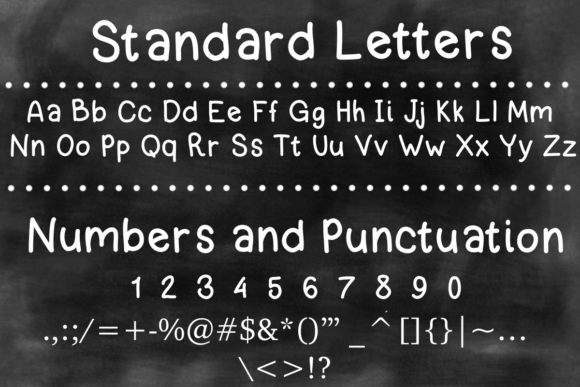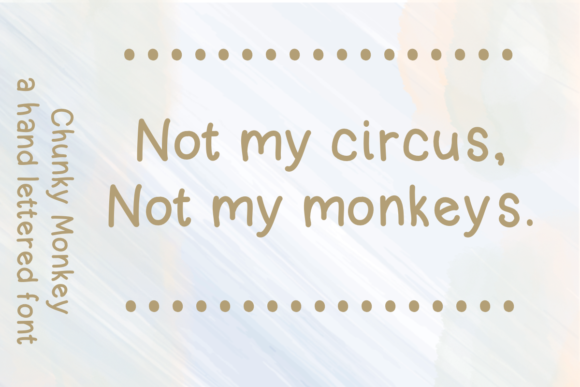
Introducing Chunky Money Font: The Fun and Funky Hand-Lettered Font You Need!
Are you tired of using the same old boring fonts in your designs? Look no further! Chunky Money Font is here to shake things up with its simple, yet cheerful, and fun vibe. This chunky hand-lettered font is perfect for designers and crafters who want to add a funky feel to their projects.
What is Chunky Money Font?
Chunky Money Font is a hand-lettered font that boasts a unique and playful style. Its chunky and bold letters are carefully crafted to give your designs a fun and lively feel. This font is perfect for creating eye-catching titles, headings, and even quotes. Whether you’re working on a graphic design project, a crafting project, or even a DIY sign, Chunky Money Font is sure to make it stand out.
Key Features of Chunky Money Font
- Hand-lettered: Each letter is carefully hand-drawn to give the font a personal and unique touch.
- Chunky and bold: The font’s chunky and bold letters make it perfect for creating eye-catching designs.
- Fun and funky: The font’s playful style is sure to add a fun and lively feel to your designs.
- Easy to read: Despite its chunky style, the font is easy to read, making it perfect for use in a variety of projects.
Uses for Chunky Money Font
Chunky Money Font is versatile and can be used in a variety of projects, including:
- Graphic design: Use the font to create eye-catching titles, headings, and quotes for your graphic design projects.
- Crafting: Add a fun and playful touch to your crafting projects, such as DIY signs, cards, and gift tags.
- Social media: Use the font to create engaging and eye-catching social media graphics and posts.
- Party decorations: Create fun and festive party decorations, such as banners and signs, using Chunky Money Font.
Why Choose Chunky Money Font?
With so many fonts available, why choose Chunky Money Font? Here are just a few reasons:
- Unique style: The font’s hand-lettered and chunky style sets it apart from other fonts.
- Versatile: The font can be used in a variety of projects, from graphic design to crafting.
Tips for Using Chunky Money Font
Here are a few tips for getting the most out of Chunky Money Font:
- Use it sparingly: While the font is fun and playful, it can be overwhelming if used too much. Use it sparingly to create emphasis and add visual interest.
- Pair it with other fonts: Chunky Money Font pairs well with other fonts, such as sans-serif fonts. Experiment with different pairings to find the one that works best for your project.
- Experiment with colors: The font looks great in a variety of colors. Experiment with different colors to find the one that works best for your project.
Chunky Money Font is a fun and funky hand-lettered font that’s perfect for designers and crafters who want to add a playful touch to their projects. With its chunky and bold letters, easy-to-read style, and versatile uses, this font is sure to become a favorite. So why wait? Give Chunky Money Font a try today and see the difference it can make in your designs!